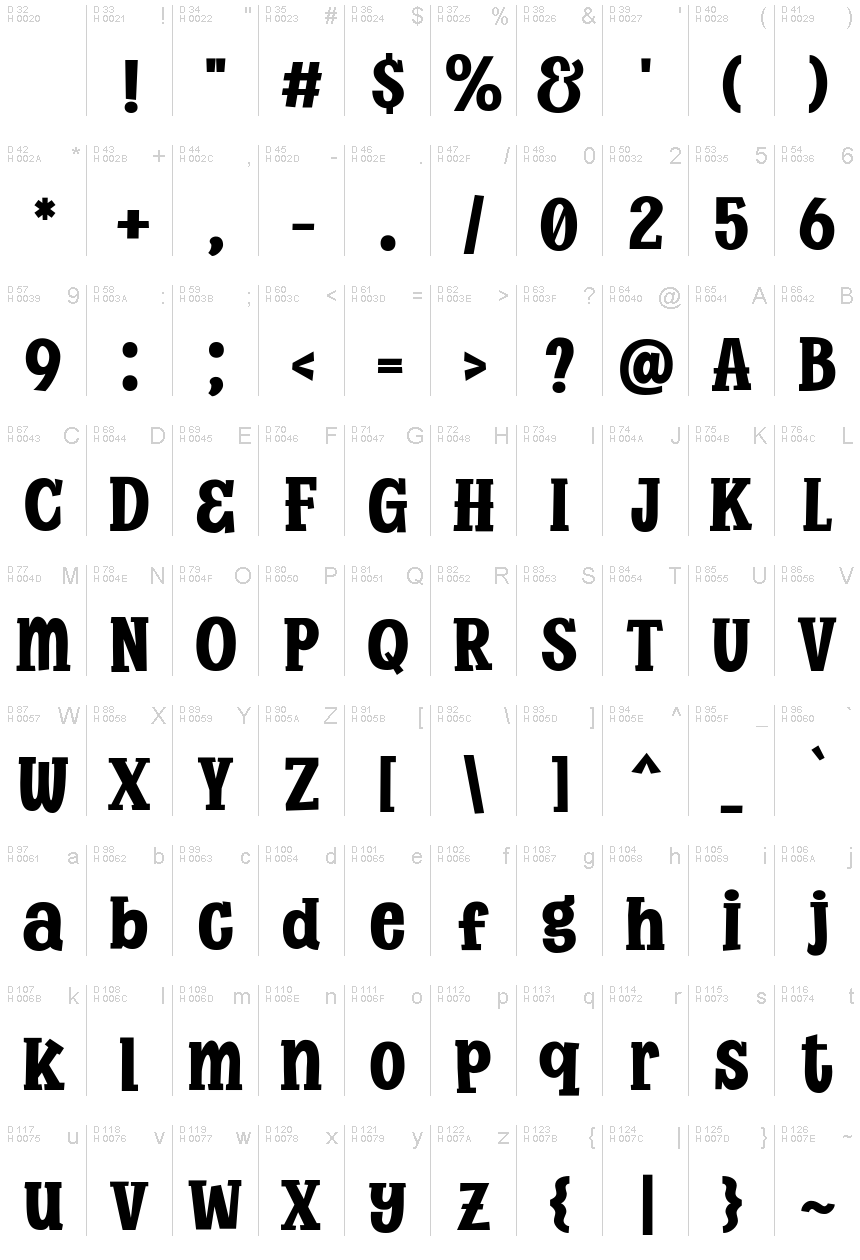
Super Cedar
Super Cedar is a bold, whimsical serif font that adds a touch of playfulness to headlines and display text.
Designed by fsuarez913, this typeface's exaggerated strokes and rounded edges create a cartoon-like aesthetic, making it an excellent choice for projects seeking a lighthearted yet impactful visual style. The font's bold weight ensures a strong presence, while its distinctive character shapes lend a sense of character and personality to any design.
Super Cedar is well-suited for a wide range of applications, from eye-catching headlines and logos to vibrant packaging and promotional materials.